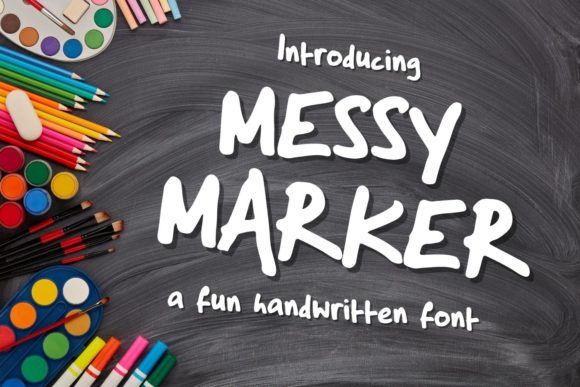
Introducing Messy Marker Font: Your Secret Weapon for Eye-Catching Designs
Step into the world of captivating designs with Messy Marker Font, the ultimate display font that exudes street art swagger. Unleash your creativity and let this font ignite your vision, leaving a lasting impression on every project.
Whether you're a seasoned designer or just starting your design journey, Messy Marker Font is your perfect companion. Its graffiti-inspired style adds a touch of edginess and authenticity to your creations, making them stand out from the crowd.
Immerse yourself in a myriad of possibilities with Messy Marker Font. Picture your designs adorning t-shirts, sportswear, logos, advertisements, and clothing, each piece infused with a unique personality that resonates with your audience.
Don't settle for ordinary fonts. Choose Messy Marker Font and elevate your designs to new heights. Its bold, graffiti-inspired strokes command attention, adding an artistic flair to your creations.
With Messy Marker Font, you'll have the power to:
* Create designs that speak volumes, expressing your individuality and style.
* Make your brand stand out, leaving a lasting impression on your customers.
* Connect with your audience on a deeper level, evoking emotions and driving engagement.